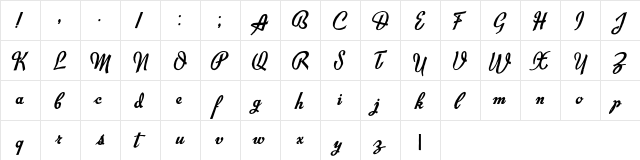
Exiles Regular Font Preview
Exiles Regular
Exiles Regular Font Details
| Foundry | Paulo W |
Design Context for Exiles Typeface
Exiles is a composed and adaptable typeface that performs quietly and consistently across a wide range of design contexts.